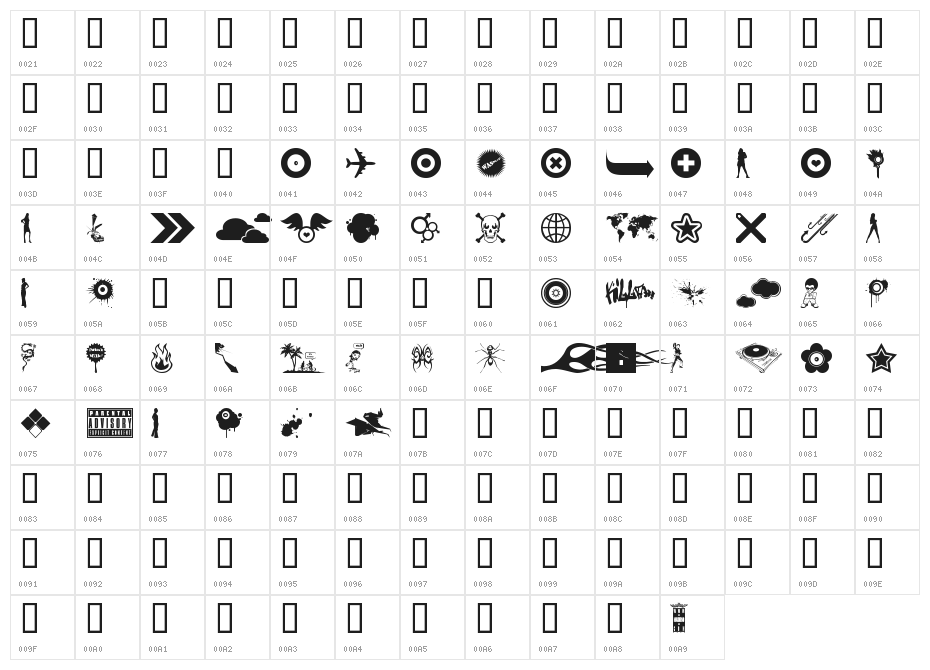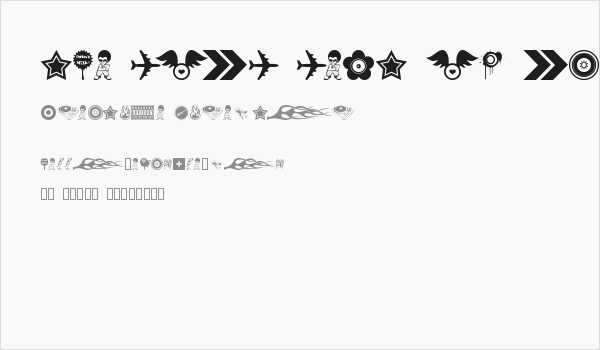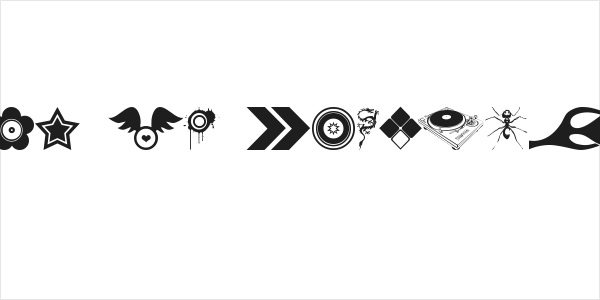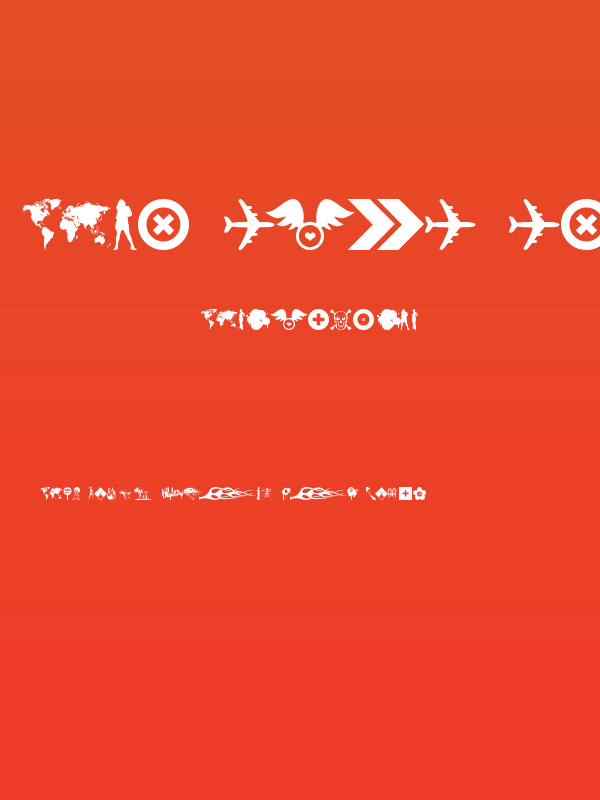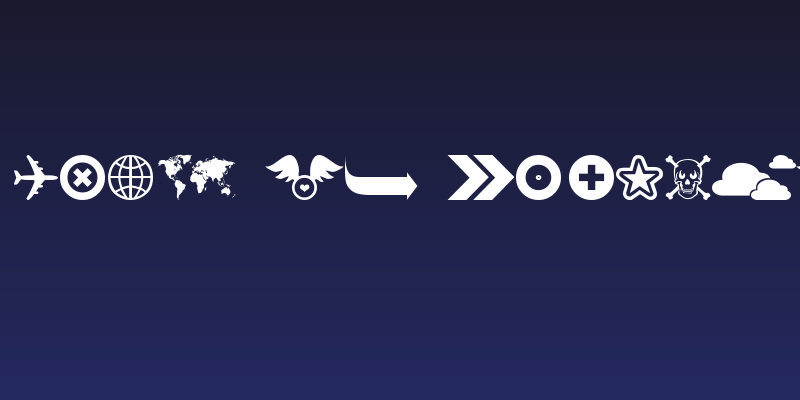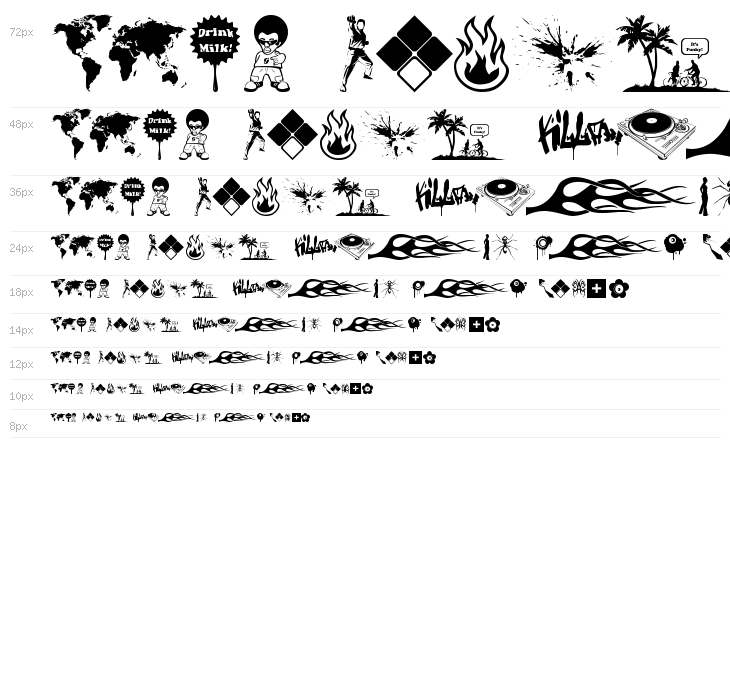
the BOMB Best Of Magurno Brushes Font
the BOMB Best Of Magurno Brushes Description
A decorative dingbat set featuring a diverse collection of bold, high-contrast graphic icons and illustrations, including symbols, silhouettes, and grunge elements. The glyphs are solid black with sharp outlines and a playful, urban style, suitable for creative and expressive design work.
Overall StyleDecorative, Urban, Grunge